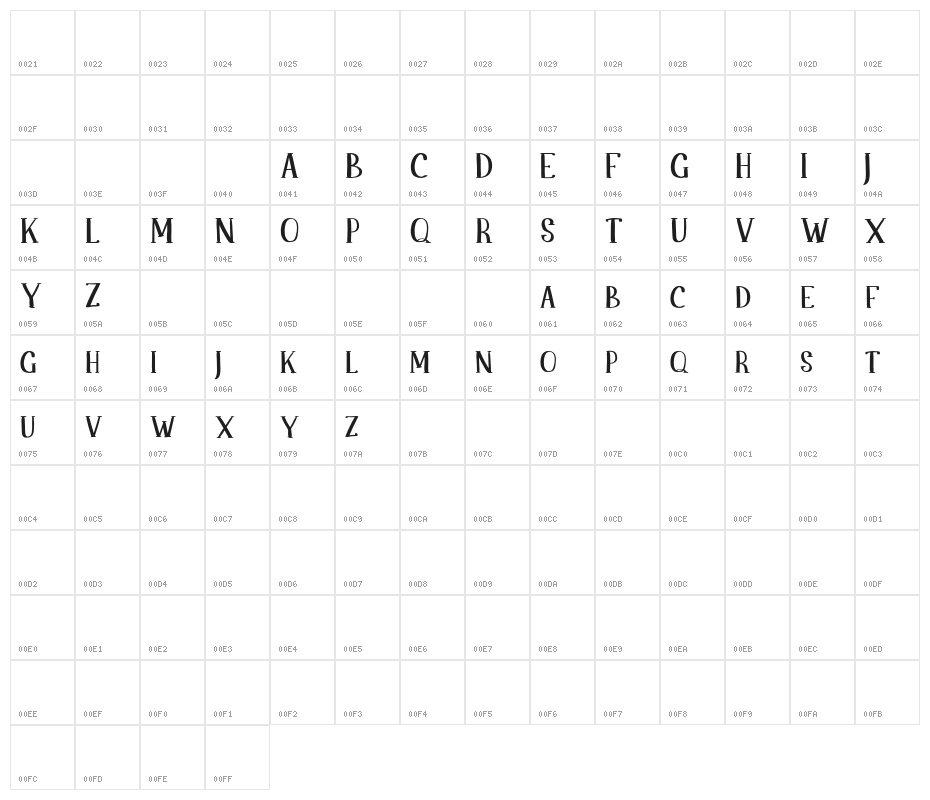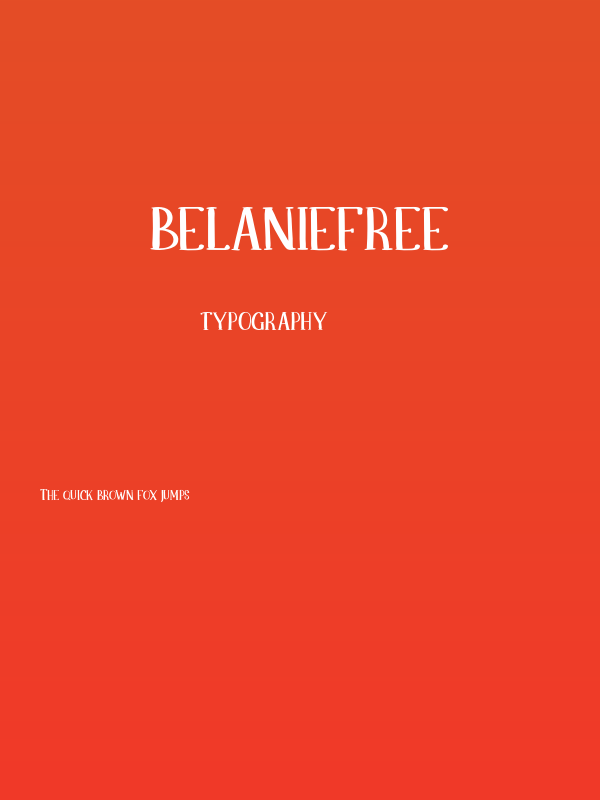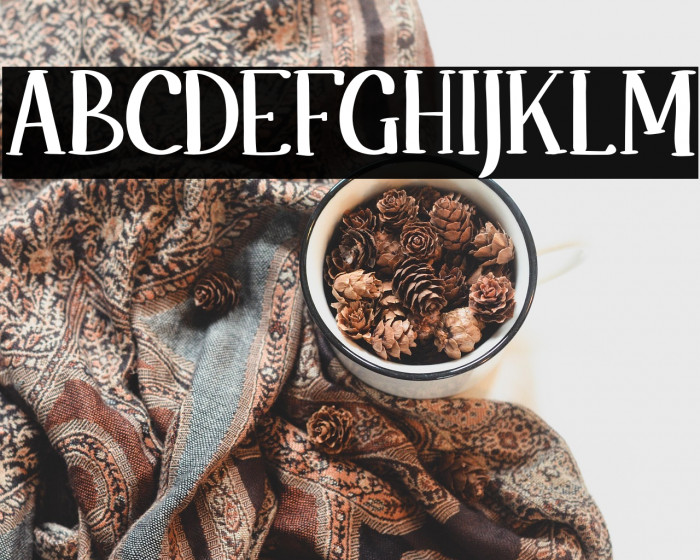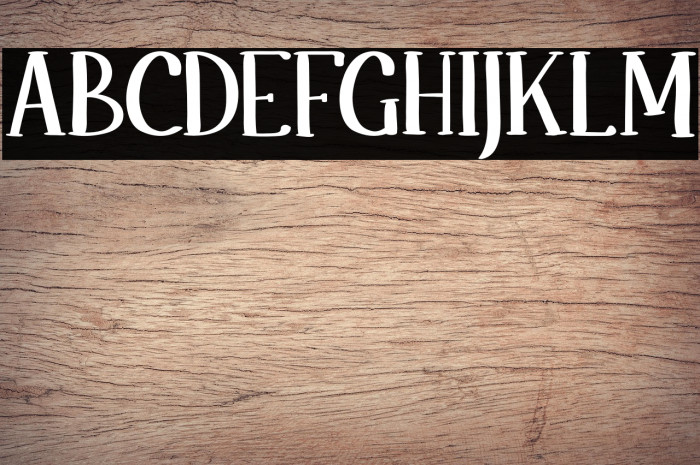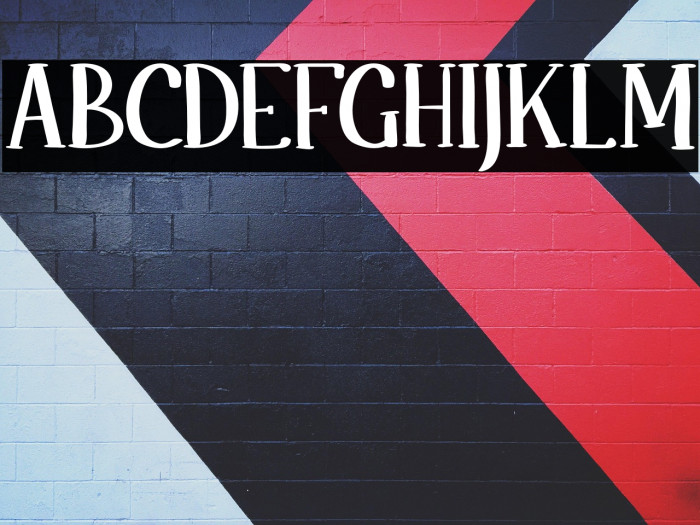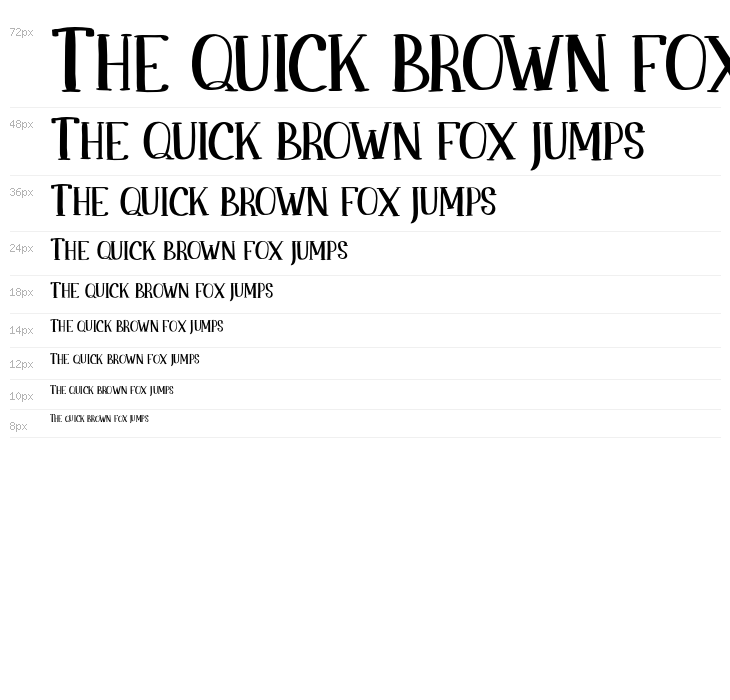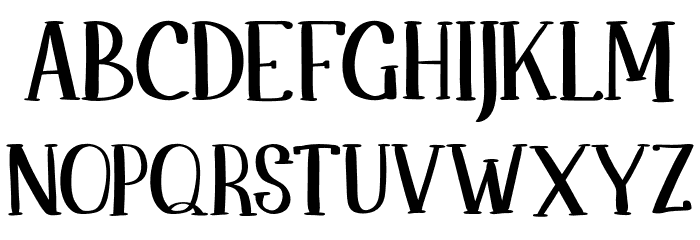
BelanieFREE Font
BelanieFREE Description
This font exhibits a bold and artistic style with a playful yet sophisticated flair. The uppercase letters are characterized by their tall, narrow forms with slightly exaggerated serifs, giving them a unique and eye-catching appearance. The lowercase letters maintain a consistent style, complementing the uppercase with their own distinct charm. The numbers are designed to match the overall aesthetic, ensuring a cohesive look across all characters. The special characters are crafted with the same attention to detail, making them suitable for various design needs. This font's boldness and artistic elements make it ideal for creative projects that require a touch of elegance and personality.
| Overall Style | Artistic, Elegant |
| Proposed Projects | Ideal for branding, posters, invitations, and any creative project requiring a distinctive and elegant touch. |